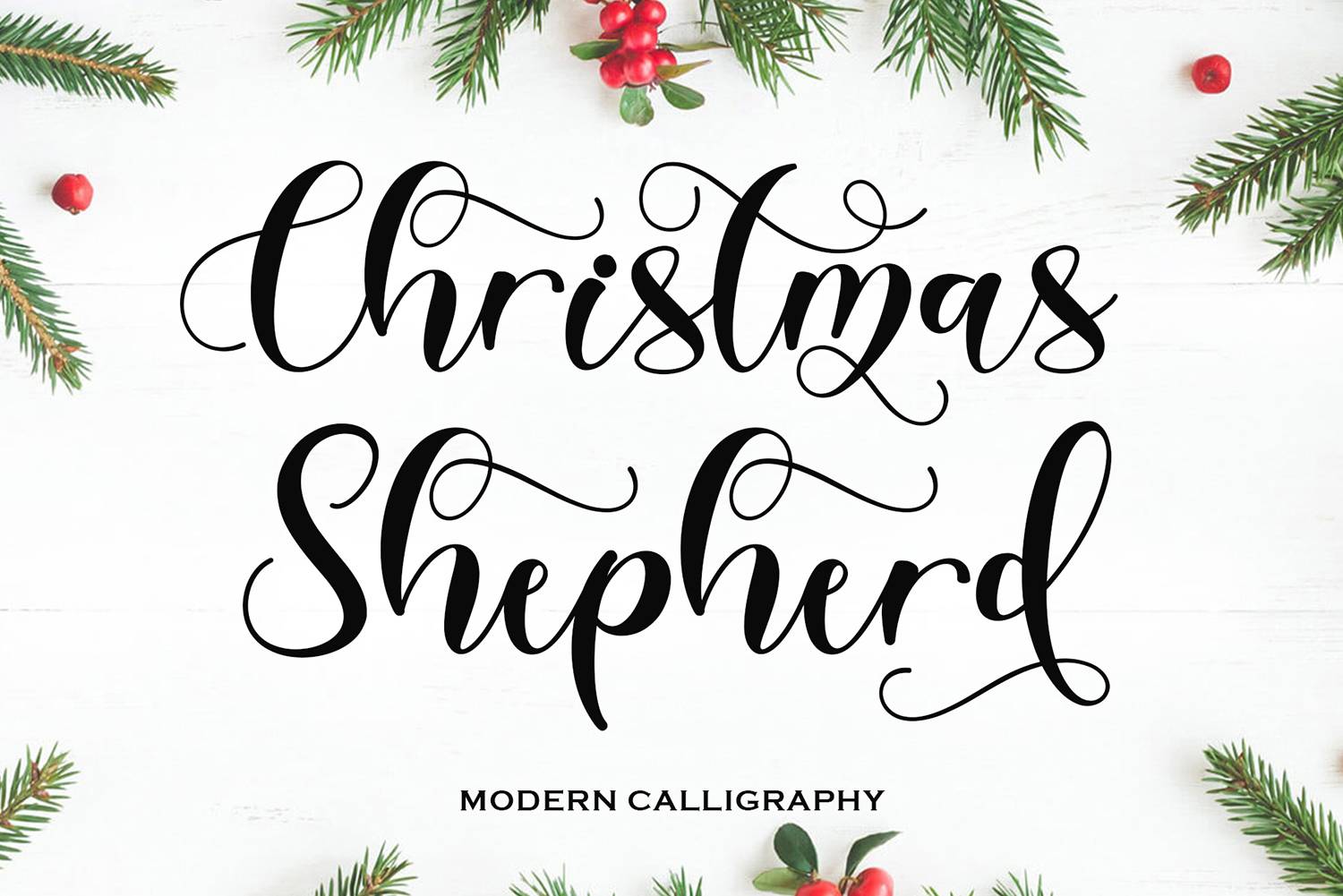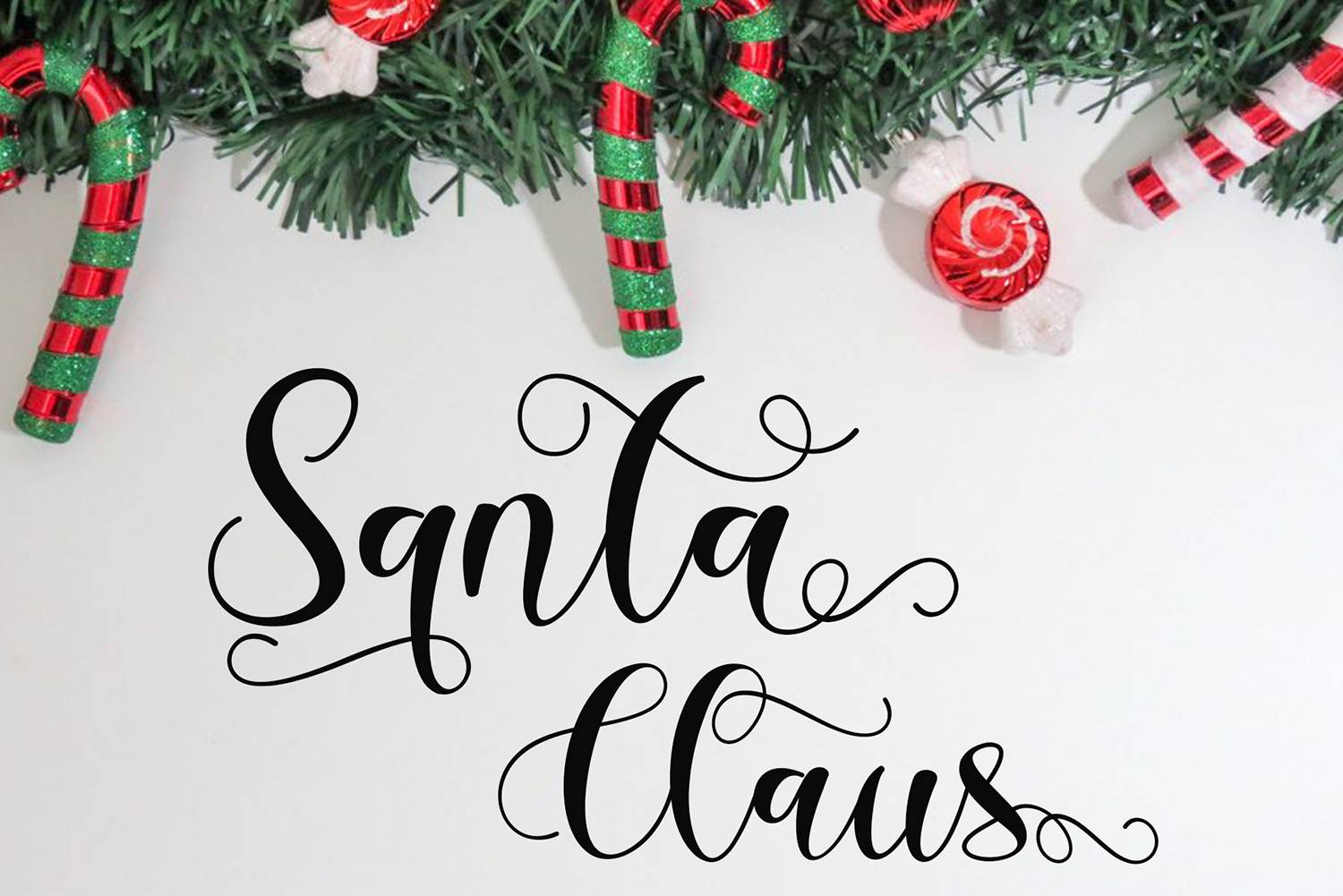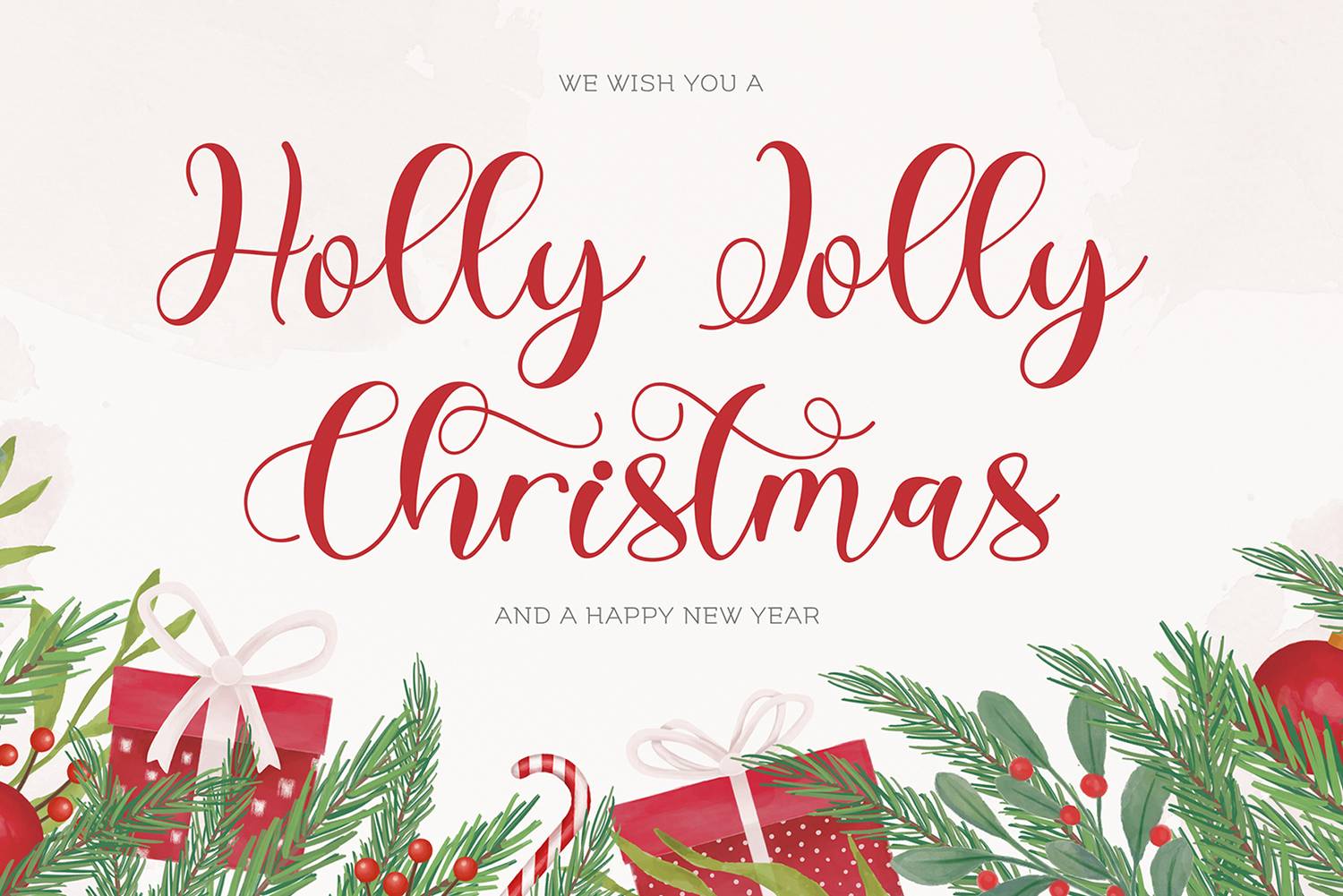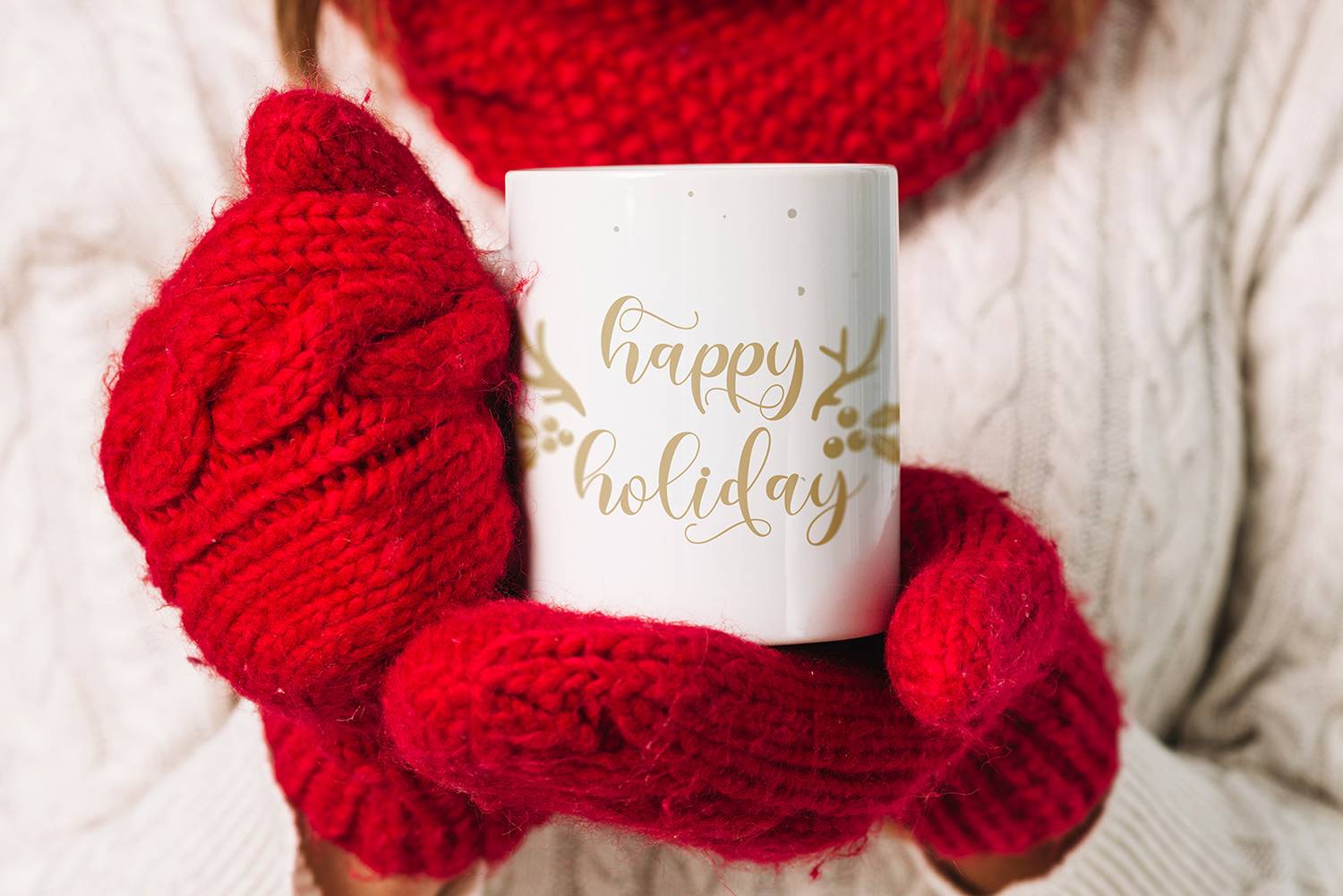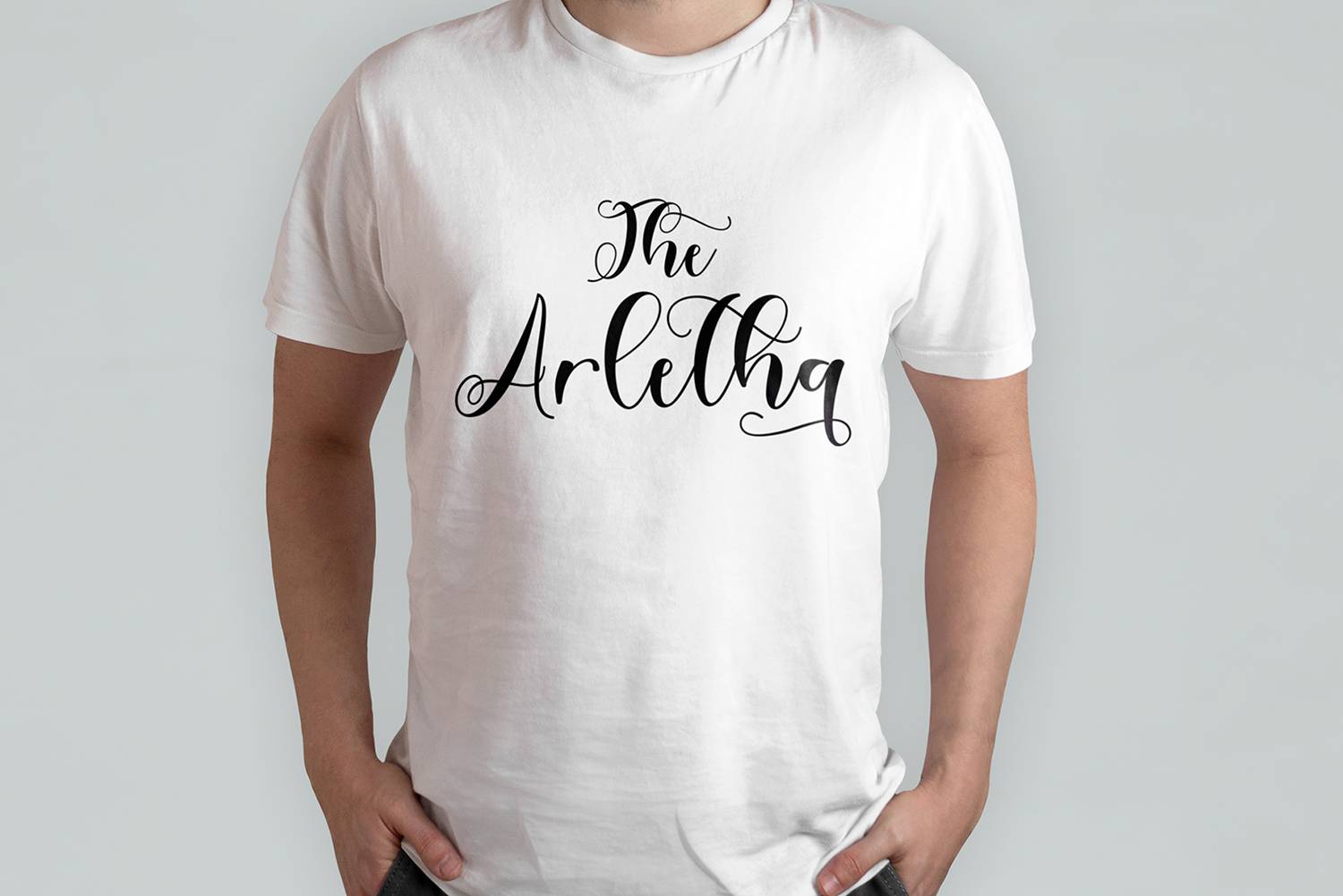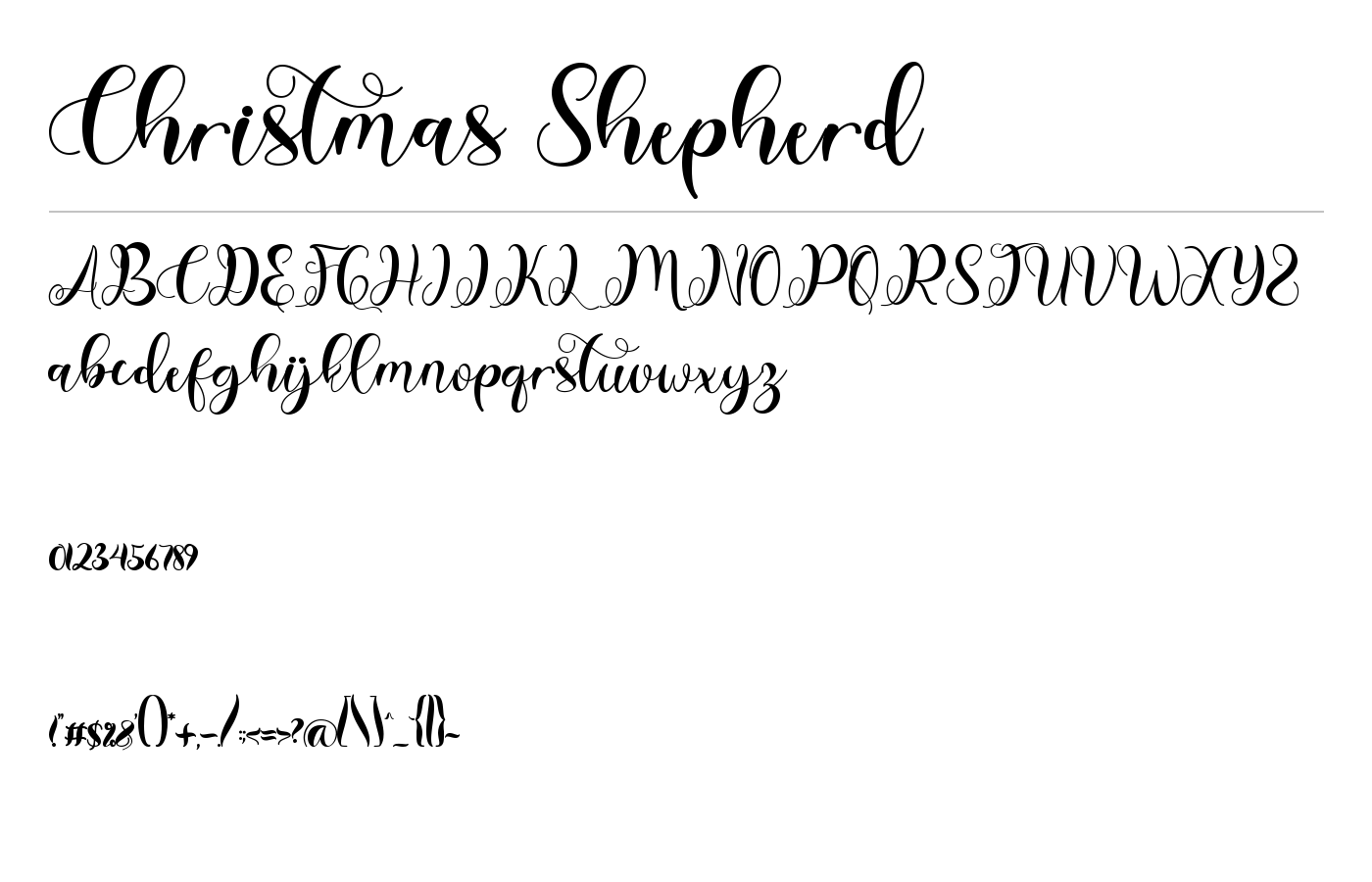
Christmas Shepherd is an elegant script font with flowing, decorative swashes and a graceful handwritten feel. Its delicate and playful strokes make it perfect for festive or romantic designs, lending a warm, sophisticated charm to invitations, greeting cards, and holiday branding. This font shines in decorative headlines and logos where a stylish and personal touch is desired.
Christmas Shepherd Font
About Christmas Shepherd Font